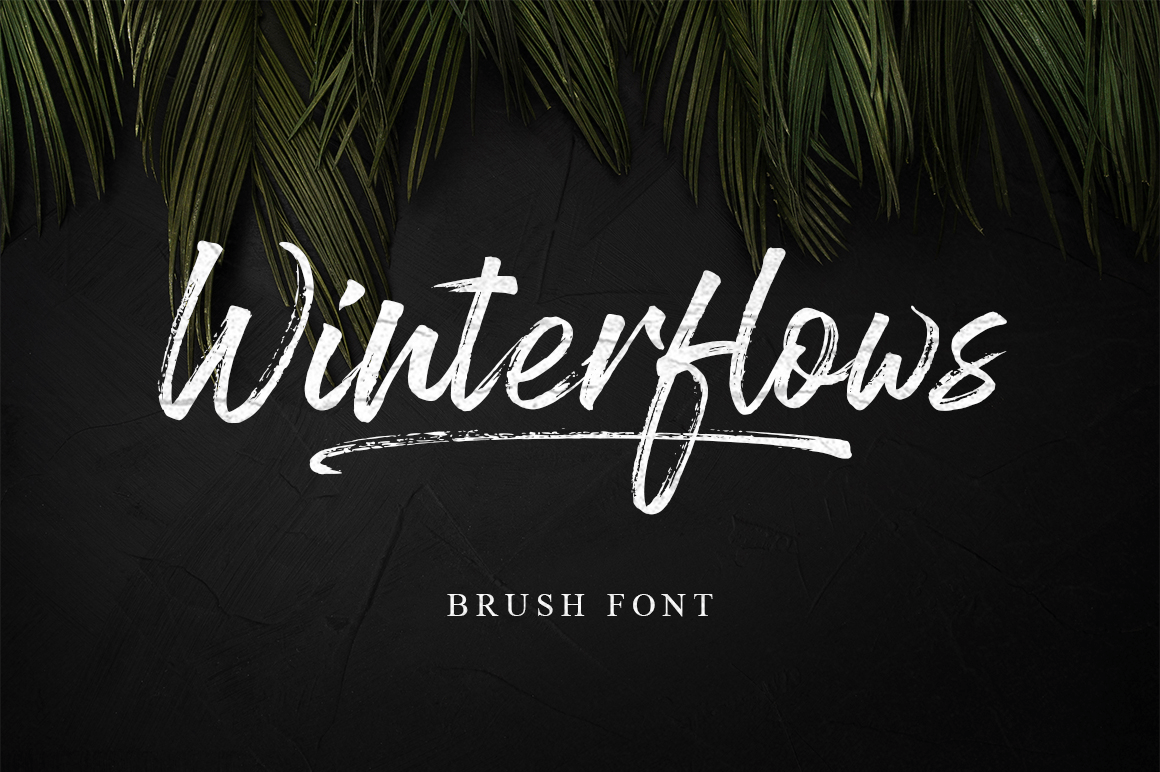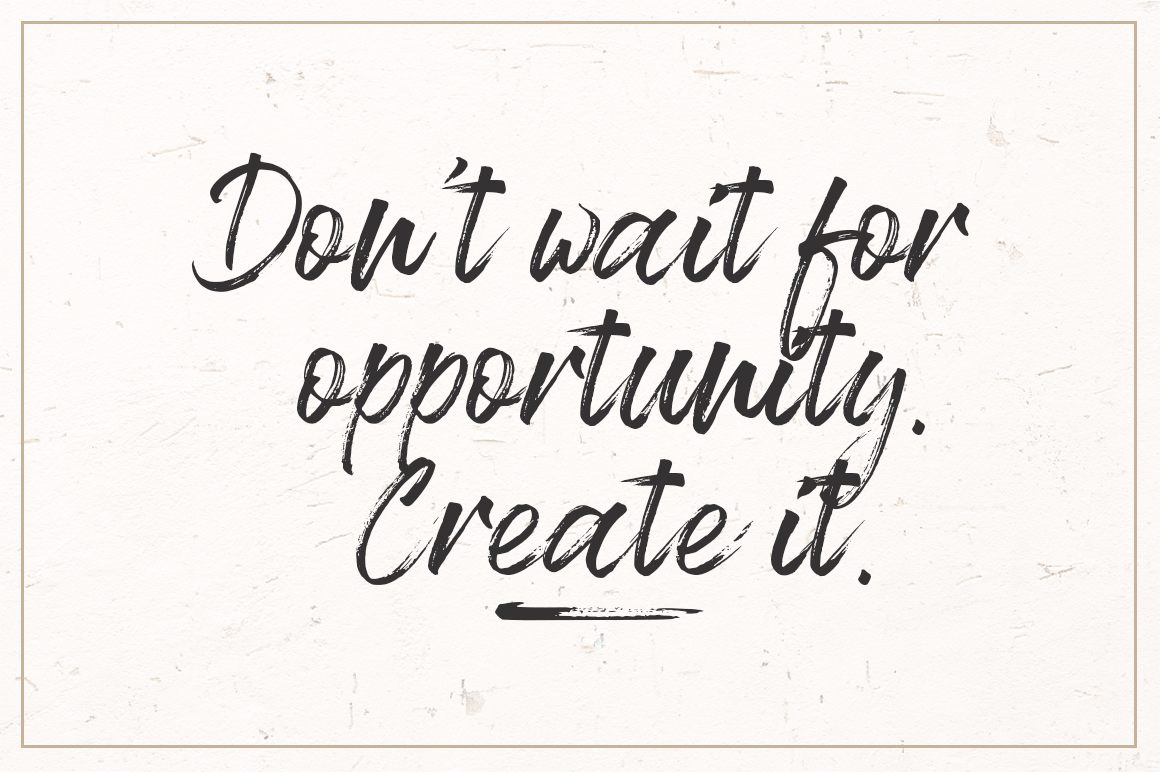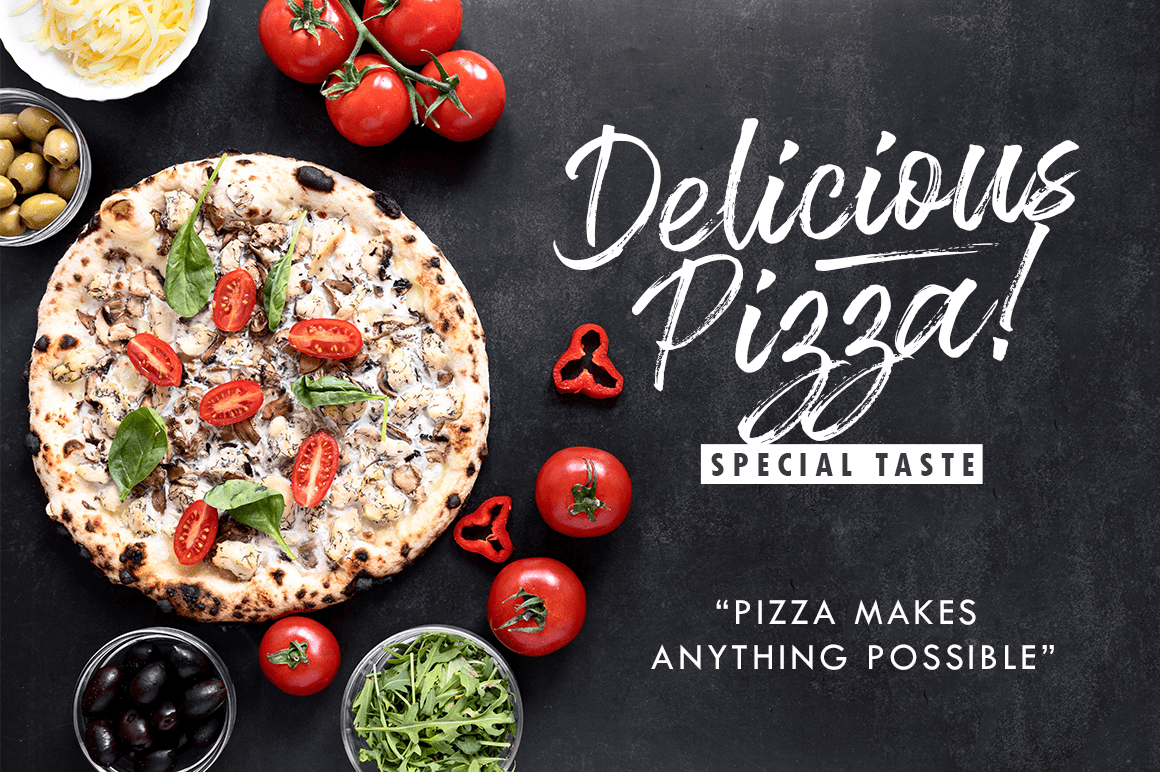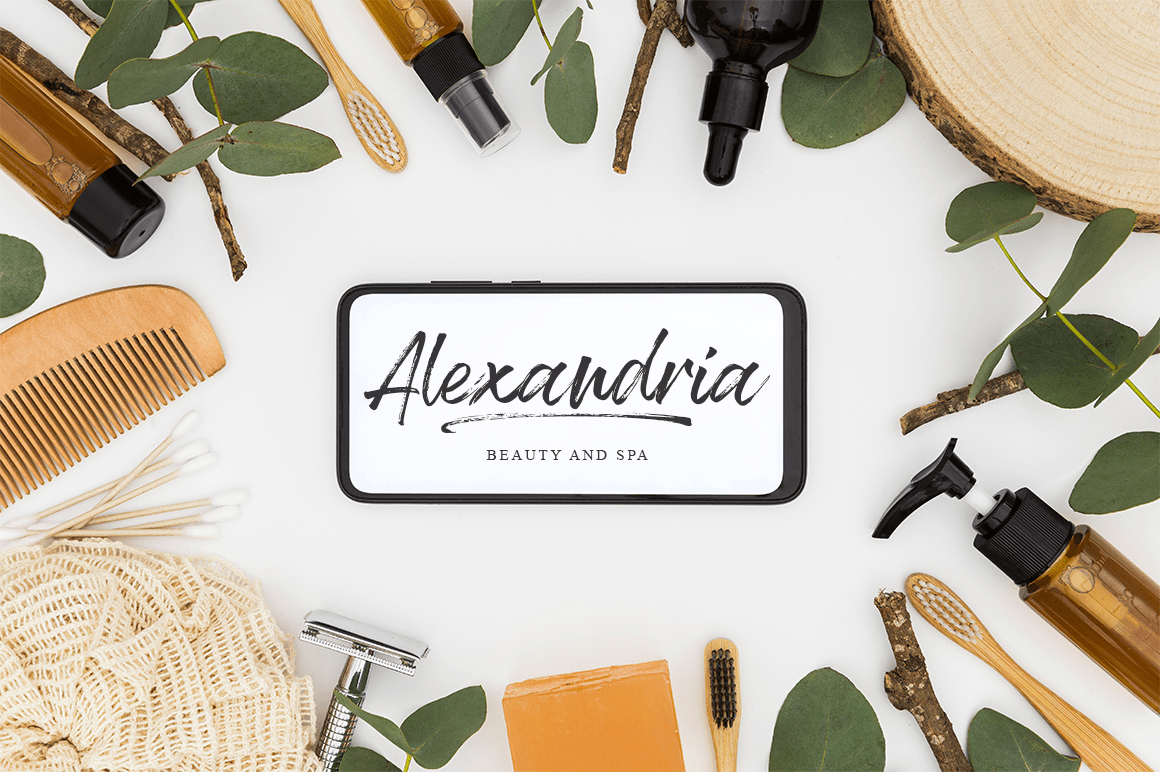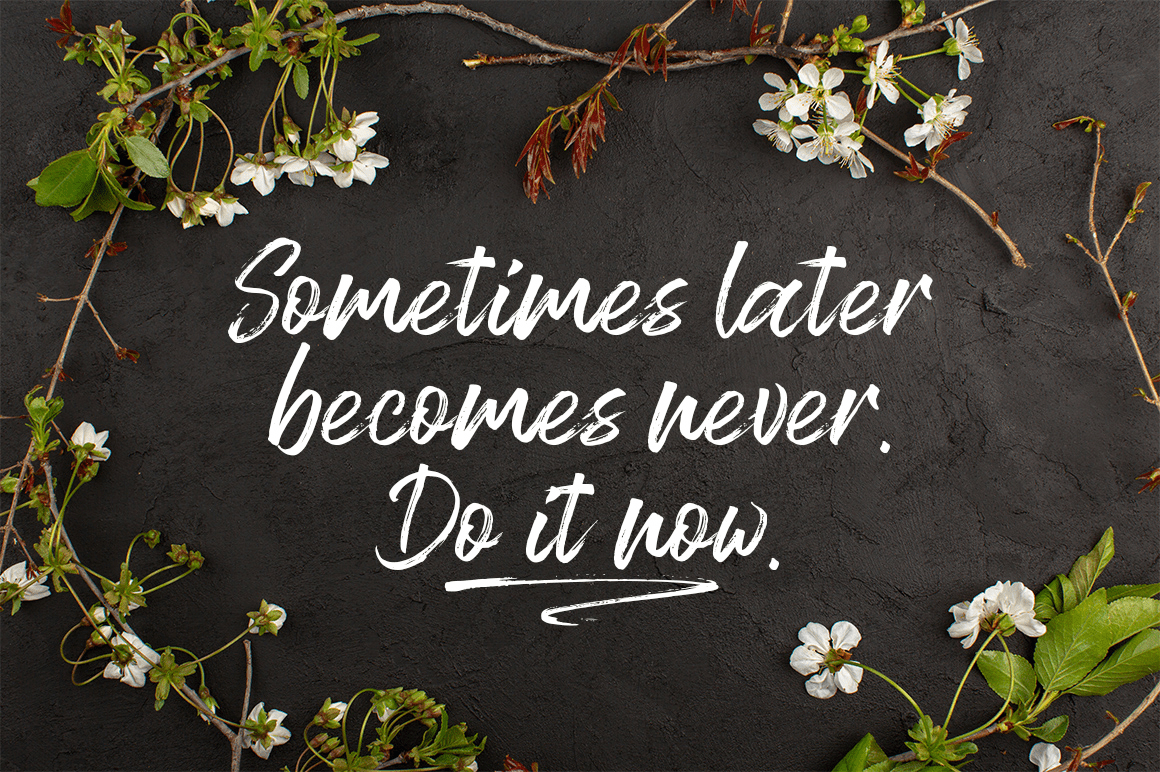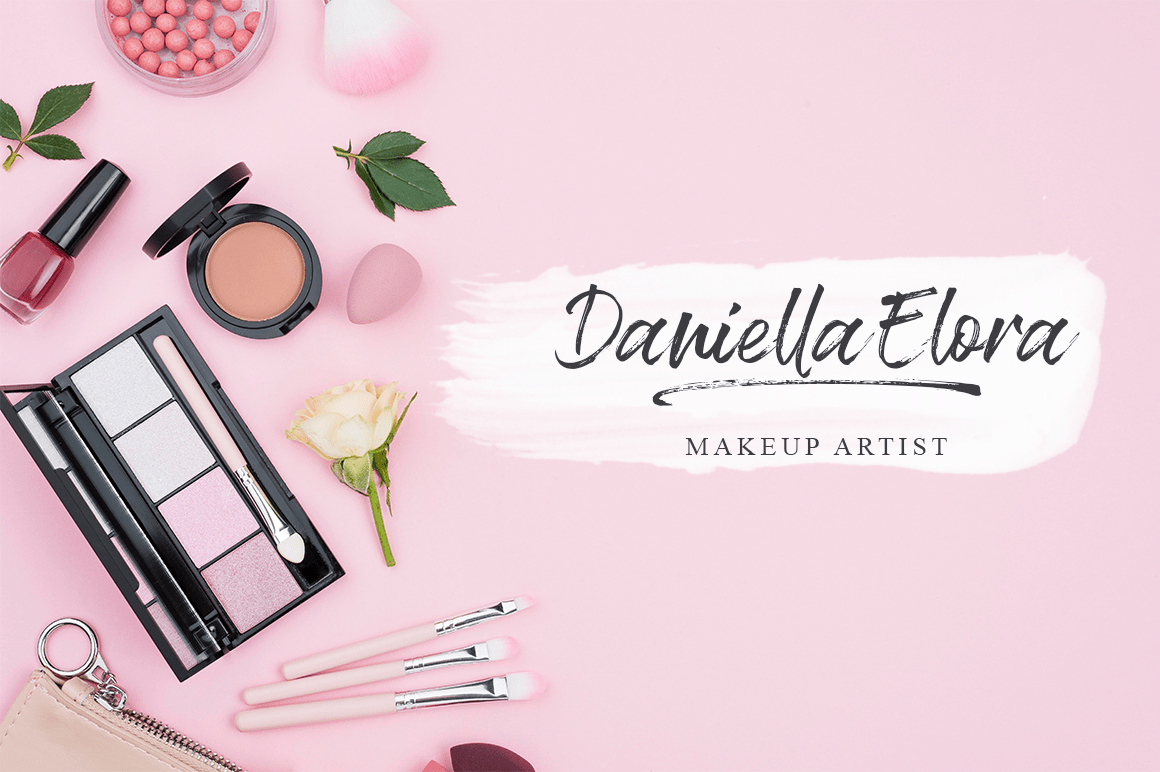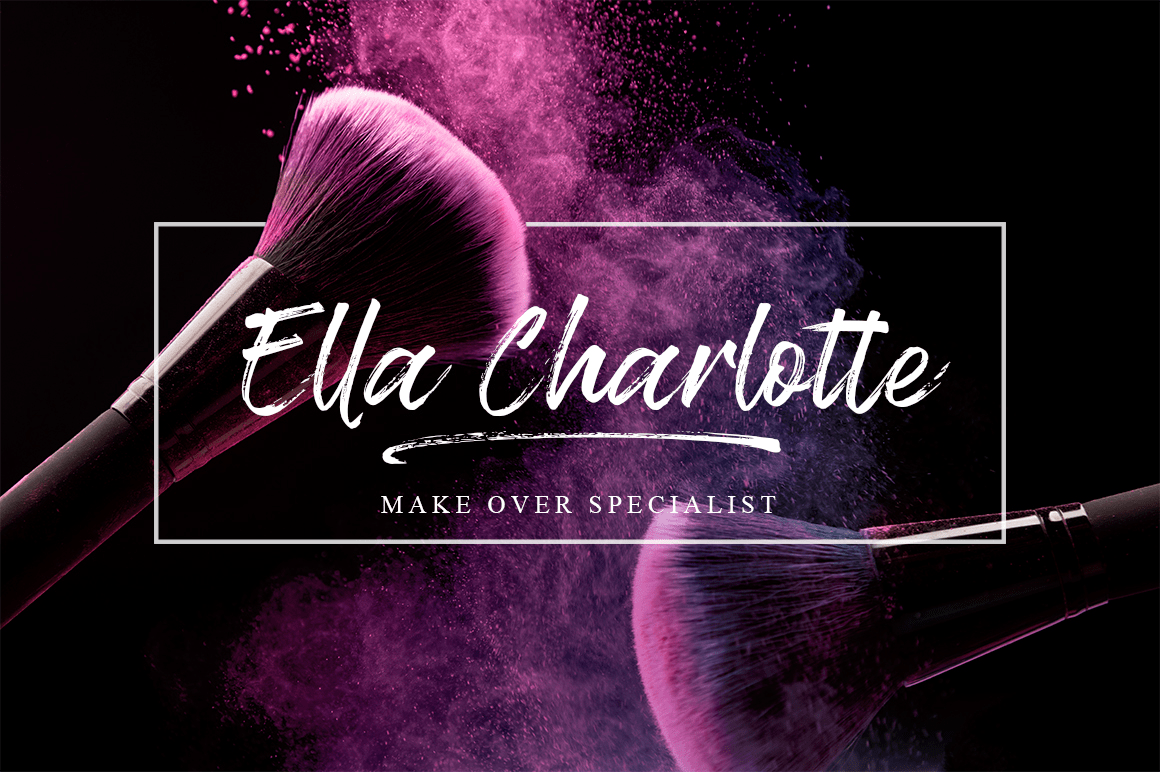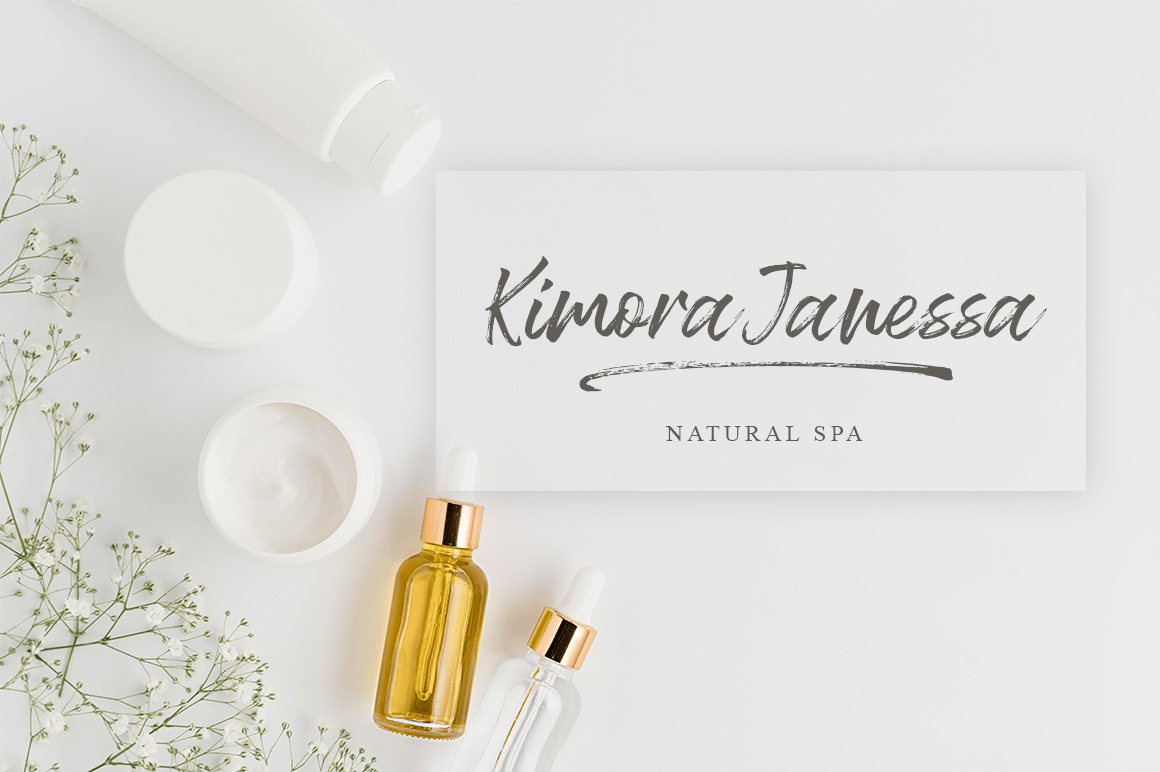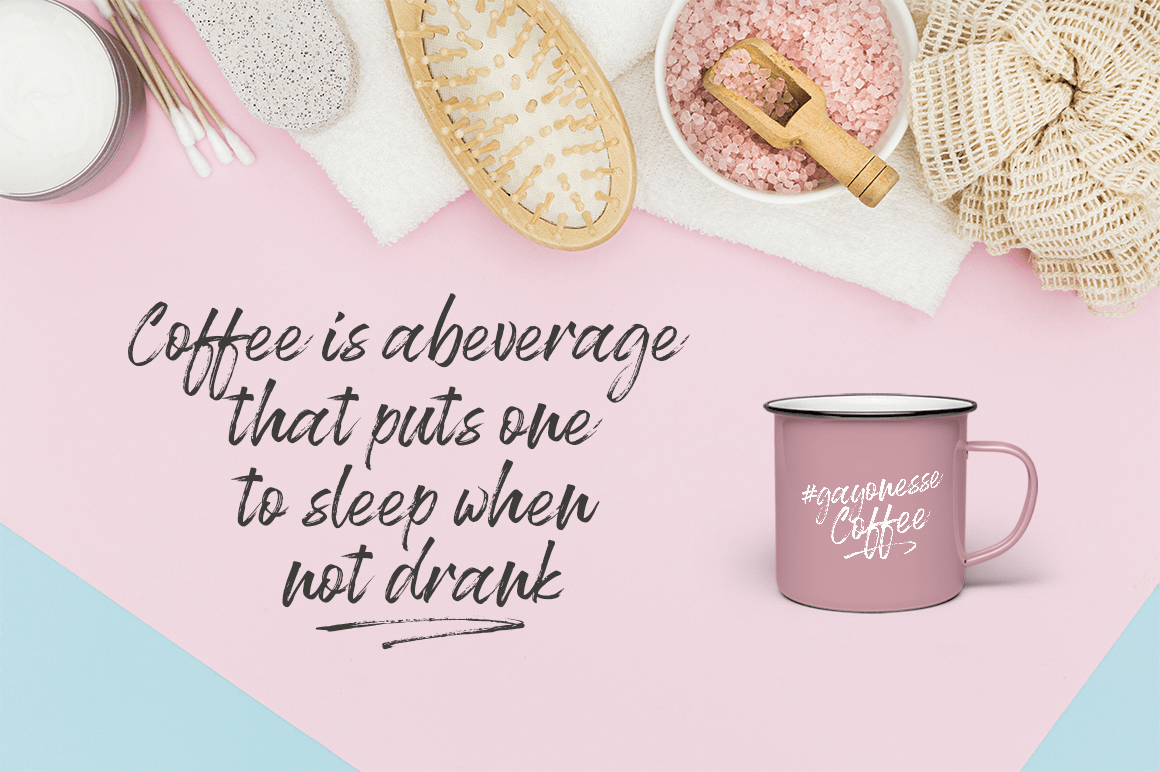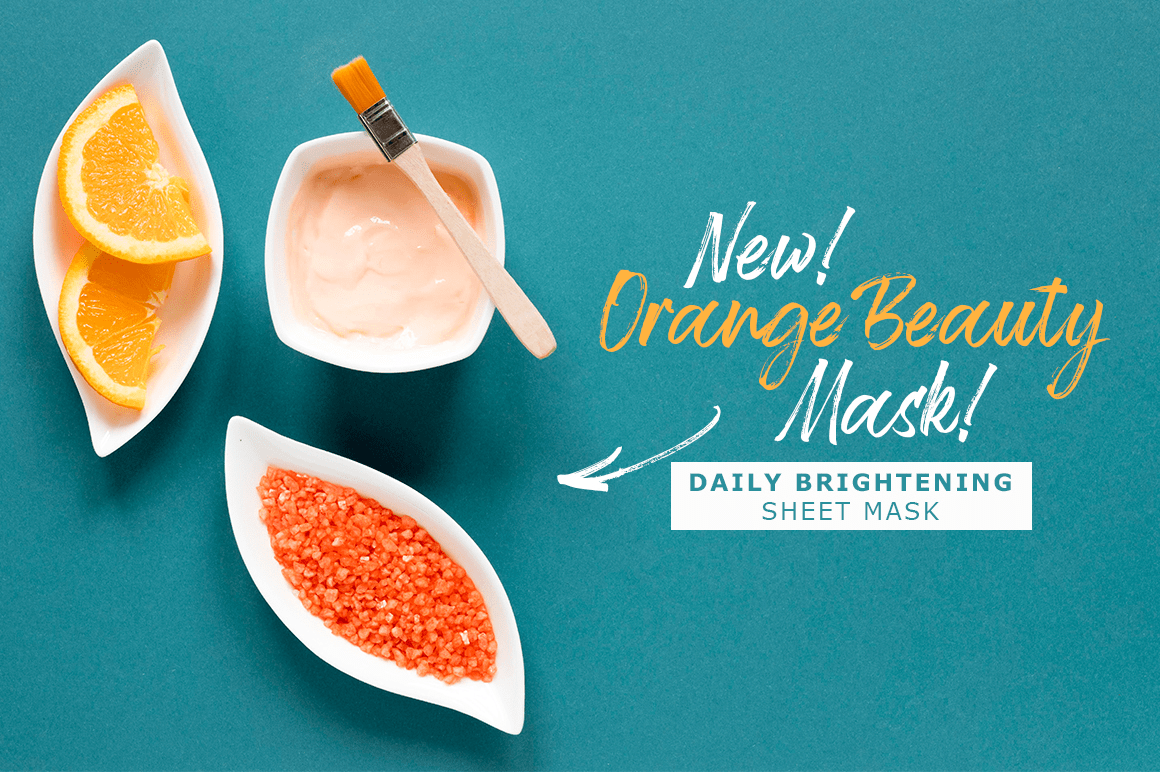
Winterflows
Introducing Winterflows
Handwritten font with quick dry strokes and a signature style. perfect for branding projects, home ware designs, product packaging or simply as a stylish text overlay to any background image or posters.
Alternates
Winterflows Includes Three Fonts
Winterflows - A handwritten script font containing upper & lowercase characters, numerals and a large range of punctuation.
Winterflows Alt - The second version of Winterflows, with a completely new set of both lower and uppercase characters.
Winterflows Swash - A set hand-drawn swashes, with cool touch to underline you're Winterflows text.